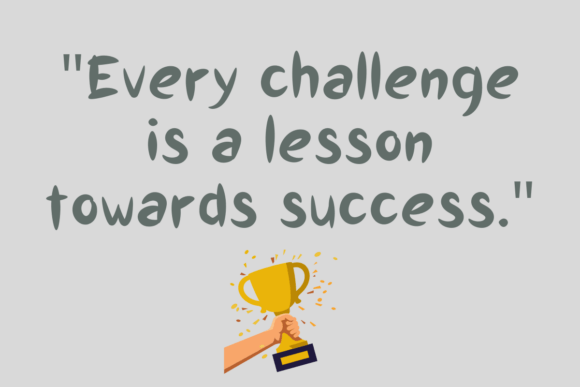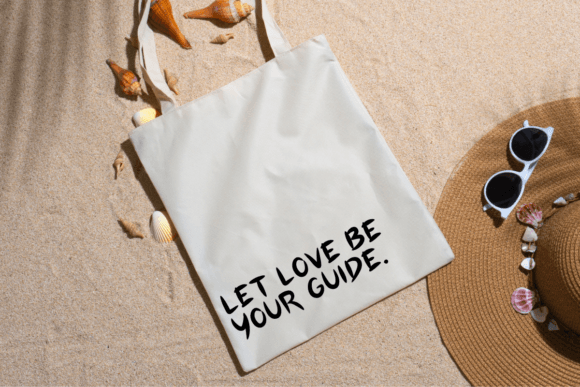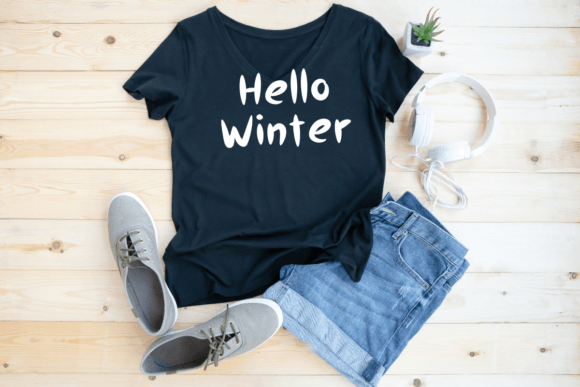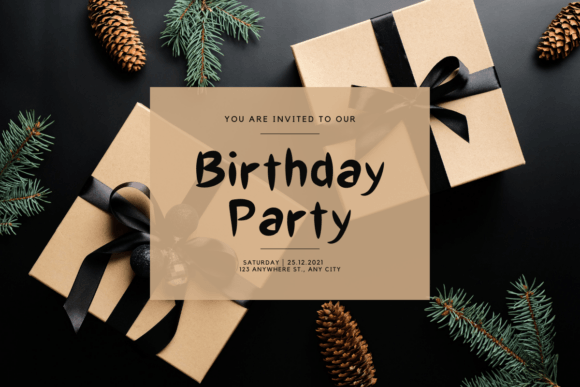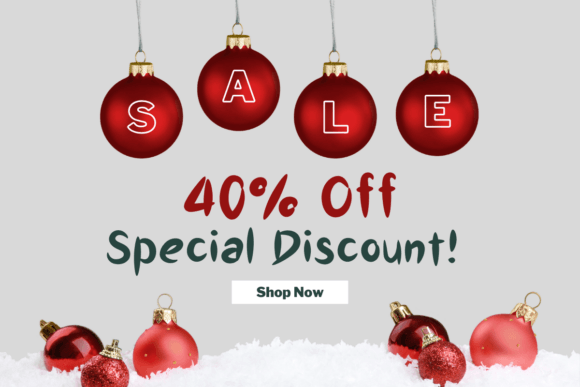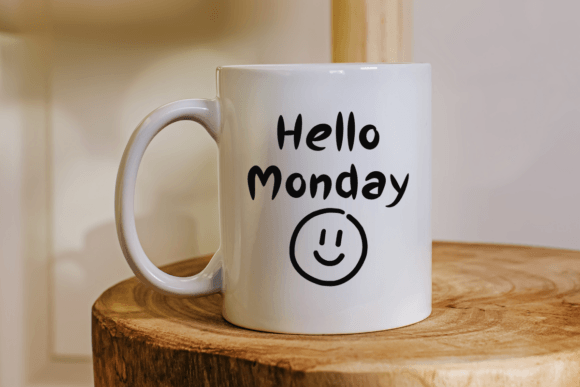
Unleashing Your Creativity with Charming Brush Font
Remember that moment when you finally found the perfect font to bring your digital note-taking to life? The one that makes your thoughts and ideas shine on the screen? For many designers, that moment is what makes all the difference between a good project and a great one. It’s the spark that sets the creative juices flowing and inspires us to push the boundaries of what’s possible.
Enter Charming Brush Font, a bold Display handwritten font designed to make your digital creations stand out. Whether you’re working on Procreate designs, blog posts, or logos, this versatile font is the perfect companion to help you express yourself. Its unique blend of elegance and playfulness makes it a valuable asset for designers looking to add a personal touch to their projects.
Charming Brush Font Key Features
- Font Family: Charming Brush Font is a unique, hand-drawn font that comes in multiple styles, including regular, bold, italic, and bold italic.
- Character Count: The font includes over 300 characters, including uppercase and lowercase letters, numbers, and punctuation marks.
- Unique Characteristics: The font features a beautiful, hand-drawn design with subtle brush strokes and imperfections, giving it a charming, personal touch.
Charming Brush Font Review
I’ve had the chance to work with the Charming Brush Font, and overall, I think it’s a lovely addition to any design project. ✨ The hand-drawn feel and soft, rounded edges give it a friendly and approachable vibe that’s perfect for creating a warm and inviting atmosphere.
Here are some of the things I think work particularly well:
- ✨ The font’s expressiveness makes it a great choice for creative or artistic projects, like children’s books or advertising campaigns.
- ✨ The bold and regular weights provide a nice balance and flexibility in terms of design applications.
- ✨ The font’s imperfections and quirks add a unique touch that can help differentiate your design from the more generic or formal fonts.
- ⚠️ The font may not be the best choice for projects that require a more formal or professional tone, as its casual feel may come across as unprofessional.
- ⚠️ The font’s low contrast between letters can make it difficult to read in certain situations, like in small sizes or with poor lighting.
Overall, I think the Charming Brush Font is a great choice for designers who want to add a touch of personality and whimsy to their projects. Just be aware of its limitations and use it thoughtfully to get the best results.
Tips for Getting the Most Out of Charming Brush Font
Use the Charming Brush Font for titles, headings, and quotes to add a touch of elegance and sophistication to your designs.
Experiment with different font sizes and colors to create a visually appealing contrast.
The Charming Brush Font is ideal for:
- Restaurant menus and branding
- Wedding and event planning materials
- Personalized gift tags and cards
Alternatives to Charming Brush Font
Great Vibes is a beautiful, elegant script font perfect for creating a sophisticated and luxurious feel. It’s ideal for use in branding, advertising, and editorial design. This font is more refined and polished compared to Charming Brush Font, making it suitable for high-end designs.